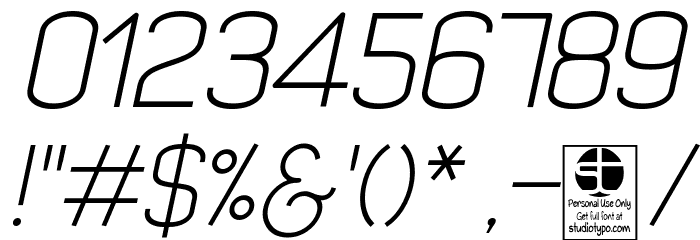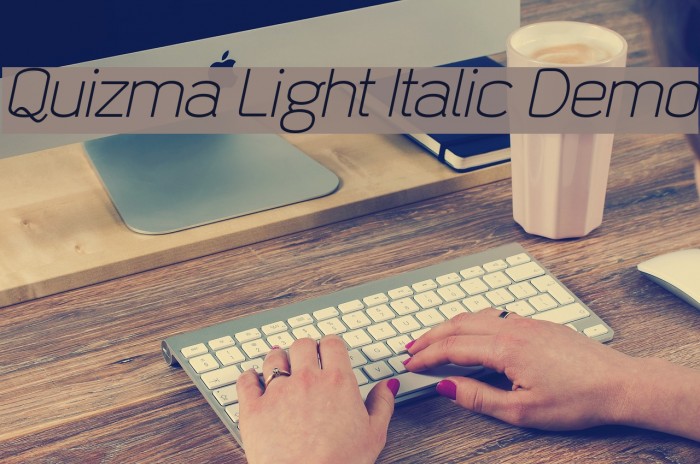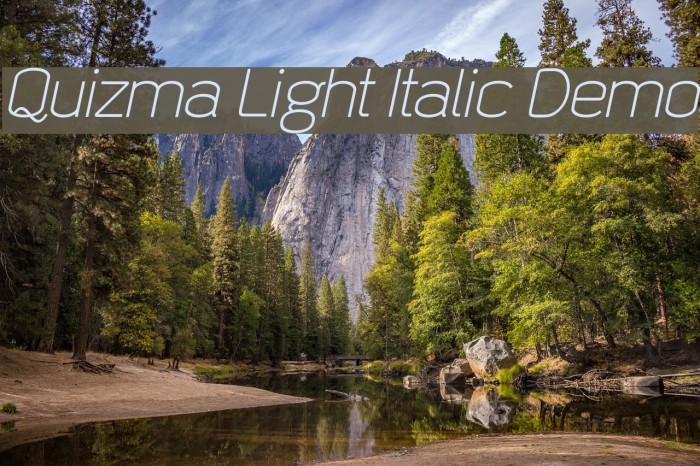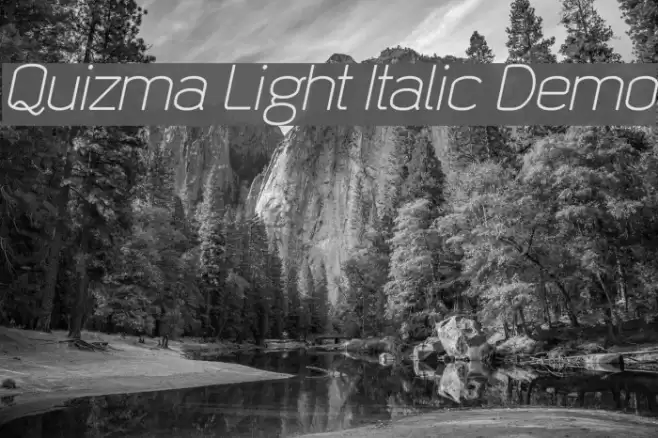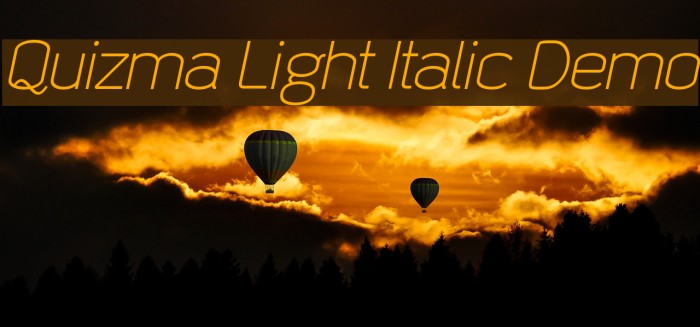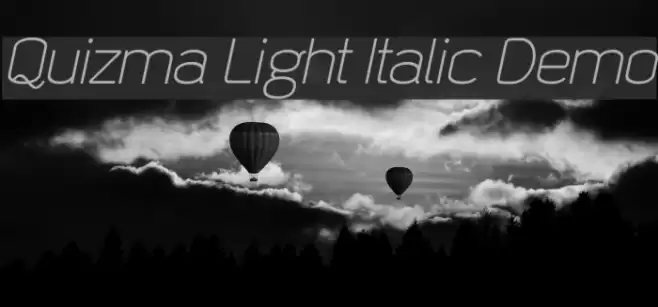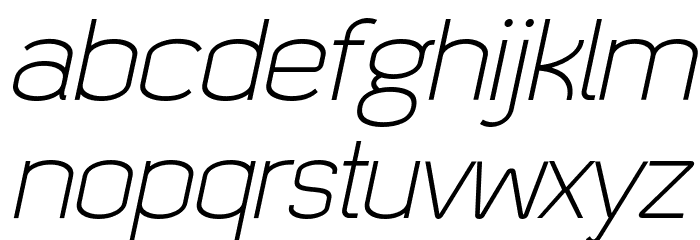
Quizma Light Italic Demo Font
Quizma Light Italic Demo Description
This font features a sleek and modern design with a light and airy feel. The italic style adds a dynamic and elegant touch, making it suitable for contemporary projects. The characters are slightly condensed, providing a streamlined appearance. The font maintains a consistent stroke width, offering a clean and uniform look. Its minimalistic design makes it versatile for various applications, from digital to print media. The special characters are well-integrated, maintaining the overall aesthetic of the font.
| Width | Condensed |
| Use Case | Headlines, Body text, Logos |
| Proposed Projects | Ideal for branding, modern websites, fashion magazines, and elegant invitations. |